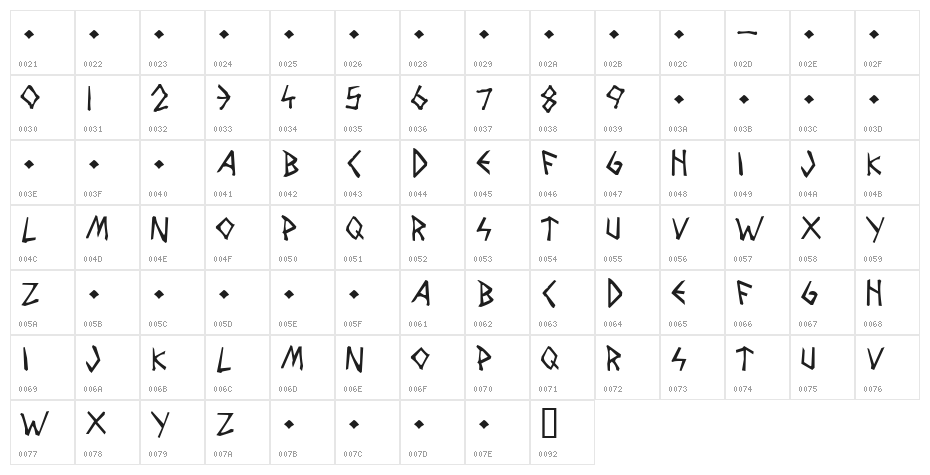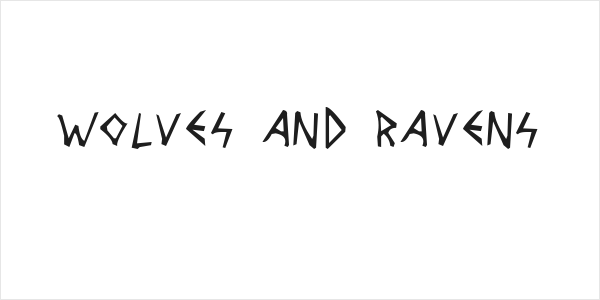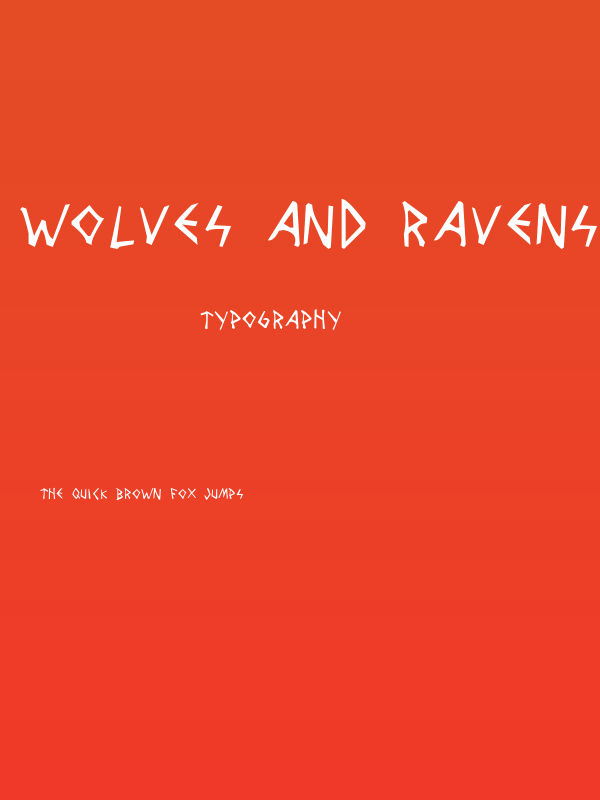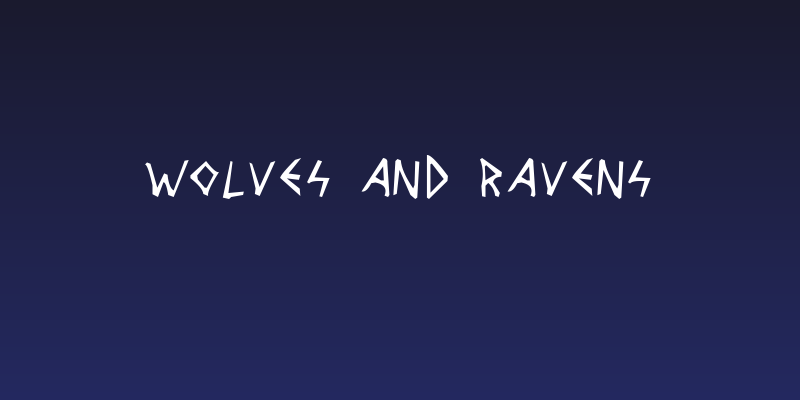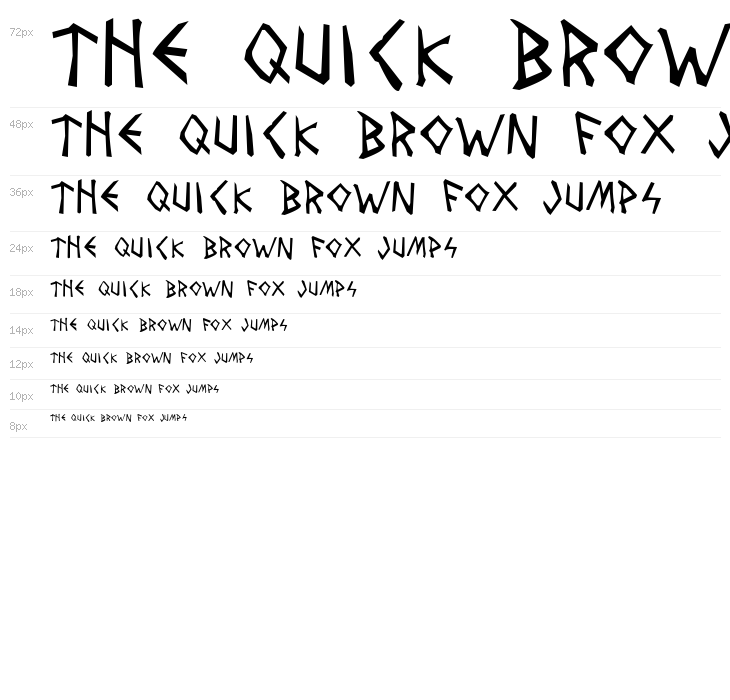
Wolves and Ravens Font
Wolves and Ravens Description
This font features a rugged, angular design reminiscent of ancient runes or tribal markings. The characters are bold and jagged, with sharp edges and irregular strokes that give it a hand-carved appearance. The uppercase and lowercase letters maintain a consistent style, with a slightly uneven baseline that adds to its raw, organic feel. The numbers follow the same aesthetic, with unique shapes that stand out. Special characters are included, maintaining the font's distinctive style. This font is ideal for projects that require a primitive or mystical touch.
| Proposed Projects | Perfect for fantasy-themed designs, video game graphics, book covers, or any project needing a mystical or ancient vibe. |